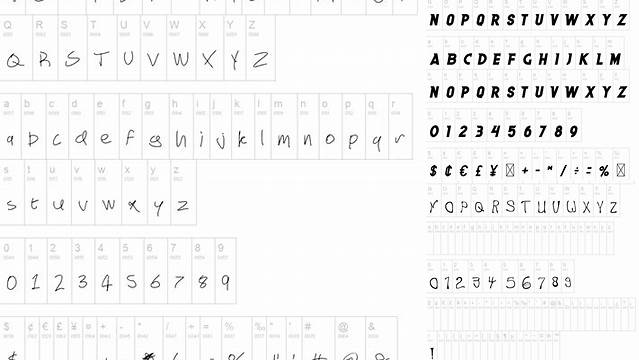
DaFont Handwriting Fonts: Find & Use The Best Styles
Discover the world of handwriting fonts dafont and how they can transform your designs! In this comprehensive guide, we'll explore everything you need to know about these fonts, from their unique characteristics and applications to the best ways to find and use them. Get ready to add a personal touch and artistic flair to your projects with the perfect handwriting font.
Discovering the Charm of Handwriting Fonts
Handwriting fonts dafont hold a unique appeal. They capture the essence of human touch and add a personal, relatable quality that's hard to replicate with standard typefaces. Unlike the rigid structure of many fonts, handwriting styles offer a sense of spontaneity and individuality, making them perfect for a variety of creative endeavors. The beauty of these fonts lies in their ability to evoke feelings of warmth, authenticity, and approachability. Whether you're designing a greeting card, crafting a logo, or creating content for your website, incorporating handwriting fonts can instantly elevate your work and capture the attention of your audience. They are versatile enough to be used across different platforms and mediums, providing a distinctive and memorable aesthetic. When you consider the wide variety of styles available, from elegant scripts to playful doodles, the possibilities are nearly endless. The key is to understand the subtle differences between each font style and how they can best serve your specific design needs. Remember, the right font can tell a story, and a handwriting font can tell a story that resonates with the heart. To truly harness the power of these fonts, we must consider their origins, the nuances in their design, and the appropriate applications for each style. This requires not just a superficial glance at the font but a deep dive into the specific details that make it unique. Are you looking for something that emulates the classic cursive of vintage letters? Or maybe something more modern and edgy to give a fresh new feel? The answers to these questions will guide you towards finding the perfect font that suits your requirements.
The Unique Qualities of Handwriting Fonts
Handwriting fonts dafont distinguish themselves from other font styles through their inherent human touch. They often include slight variations in the letterforms, mimicking the natural inconsistencies of actual handwriting. This inherent variance is what adds authenticity and personality to a design. A well-chosen handwriting font can make your design appear more personal and relatable, especially when used in contexts where authenticity and genuineness are key, such as personal blogs, invitations, or handmade product promotions. The subtle imperfections and unique flourishes add an element of warmth and intimacy that can immediately capture the viewer’s attention. Additionally, many of these fonts come with special characters or alternative glyphs that provide further options to customize the text. These options give designers a greater ability to truly personalize their designs. Choosing the right font is not only about matching the style, but it is also about creating a cohesive message that speaks to the audience and enhances their experience. Understanding these qualities helps in selecting the ideal font that adds a personal touch to any design project. The beauty of a handwritten font is that it brings a certain realness to a design that feels a little less 'corporate' and much more 'human'. So, when you want to add that special touch, go with a handwriting font.
Exploring the Applications of Handwriting Fonts
Handwriting fonts dafont have diverse applications. They are suitable for a wide range of design projects, making them incredibly versatile. Some popular uses include creating invitations, which benefit from the personal touch of a handwritten style; designing logos and branding materials to evoke a sense of authenticity; crafting social media graphics to catch the eye; and creating websites or blog headers to give a more personal tone. Beyond these, they are also frequently used in educational materials, children's books, and even in print designs like posters, t-shirts, and merchandise. The key to using them effectively is knowing where they excel. They work best when trying to convey an approachable, friendly, or personal feeling. Imagine using one for a wedding invitation, or to add a homemade feel to your Etsy shop banners. The flexibility of handwriting fonts is unmatched, as they can either stand alone as the main text or be used in combination with other fonts to create a unique visual aesthetic. You may pair a bold, handwritten headline with a clean, sans-serif body text. Ultimately, the correct use of handwriting fonts can provide a distinct and memorable design experience. When you explore all of the potential uses, it is clear that this font type is a crucial component of today’s design world.
Finding the Perfect Handwriting Fonts on DaFont
Handwriting fonts dafont offers an expansive library, providing a wealth of options for every creative need. The platform is easy to navigate, with fonts neatly categorized, enabling a smooth browsing experience. Here’s a closer look at how to find the ideal handwriting fonts on DaFont. You can search directly using keywords such as 'handwritten', 'script', 'signature', or specific names like 'cursive'. DaFont also allows filtering fonts by style, size, and popularity. The site's user-friendly search and filtering tools make finding the perfect font incredibly easy. Consider exploring the 'Theme' and 'Popular' categories to see the most downloaded and highly-rated fonts, potentially saving you time and effort in finding the best options. Always preview the font to see how it looks with the text you intend to use. This preview function allows you to visualize the font in different sizes and styles before you commit to a download. It’s also useful to examine the license information for each font to ensure its suitability for your intended use, whether it is for personal projects, commercial ventures, or both. By using these practical strategies, you will efficiently explore the possibilities DaFont offers. This will also help you in finding the handwriting font that best matches your project’s aesthetic and requirements. Remember, the key to success lies in careful examination and thoughtful choices.
Navigating DaFont's Handwriting Font Categories
Handwriting fonts dafont categorizes handwriting fonts to make browsing easier. The site offers several sub-categories under the broader 'Handwritten' section, like 'Brush', 'Crayon', 'School', 'Various', and 'Trash'. Each of these categories encompasses fonts with different aesthetics, allowing you to swiftly filter options that meet your specific design needs. For instance, if you want something that simulates the feel of a brush stroke, the 'Brush' category is a great starting point. For a design that requires a more playful or childlike feel, the 'Crayon' category could be the best place to search. The 'School' section is perfect for fonts that mimic classroom handwriting styles, great for educational projects. Furthermore, the 'Various' section provides a collection of fonts that don't fit neatly into the other categories. These may include experimental or unique handwriting styles. Understanding these categories helps you identify which style best suits your project's requirements. Take time to explore each of these categories to find the perfect font, making the browsing process both efficient and productive. The more familiar you are with the different categories, the quicker you will discover the hidden gems within DaFont’s massive font library. Knowing what options exist lets you use these tools to create the most effective design.
Tips for Previewing and Selecting Handwriting Fonts
Handwriting fonts dafont provides preview options, a crucial feature in making the best font selection. When browsing, use the preview option to see how a font appears with your text. This allows you to test out different words and phrases to ensure the font's readability and aesthetic suitability. Always examine the font in different sizes, as some fonts look better at larger sizes and may lose detail when reduced. Also, consider the font's kerning and spacing, especially if you intend to use it in headlines or short text blocks. Pay attention to the font’s style and whether it harmonizes with the overall design aesthetic. If the font will be used together with other fonts, check how well they complement each other. Think about the context in which the font will be used and the message you want to communicate. The preview tool also shows you how a font looks in different design scenarios. It is also vital to examine the characters available in each font. Some fonts may not have all the glyphs or special characters needed for your project. By thoughtfully using the preview features, you can save time and ensure that your selected handwriting font perfectly matches your design requirements. This process is key to finding the right fit.
Understanding Font Licenses on DaFont
Handwriting fonts dafont offers fonts with different licenses, so it's crucial to understand these to avoid legal problems. The license determines how you can use the font – for personal, commercial, or both purposes. Most free fonts on DaFont have a 'Free for Personal Use' license. If you plan to use a font for commercial projects, be aware of the restrictions. You should examine the font’s license details before downloading or using it in your design. These details can be found in the font’s description. Some fonts are free for commercial use, whereas others might require you to purchase a license, which allows you to use them for your business. Some designers are generous enough to let others use their fonts for free, while some might require a small fee. There is no one-size-fits-all. Always check the license before using the font to ensure you're adhering to the terms and avoiding copyright infringements. If a font is used without the appropriate license, you could face legal actions. It is always recommended to understand the license information before downloading and using any font from DaFont. This will save you from unnecessary legal and financial issues. This is a critical step in your font selection process.
Using Handwriting Fonts Effectively in Your Designs
To integrate handwriting fonts dafont into your projects effectively, it's important to consider several factors. The key is to ensure the font not only looks good but also enhances the overall message and visual appeal of your design. The first step is choosing the correct font based on your project’s overall theme and message. For example, an elegant script might be perfect for wedding invitations, whereas a bold, playful font is more suitable for children's books. When using handwriting fonts, pay attention to readability. Some fonts can be difficult to read at smaller sizes or in long blocks of text. Consider using them for headlines, short quotes, or accent elements rather than body text. When pairing them with other fonts, ensure there is a balance and contrast. It is best to combine a handwriting font with a simpler, more readable font for the body text. It's important to evaluate the design on various devices and screen sizes. Ensure the font remains legible and visually appealing. By taking these elements into account, you can use these fonts to their full potential. This enables you to create designs that are both visually appealing and effective in conveying your intended message.
Readability and Legibility in Handwriting Fonts
Handwriting fonts dafont add charm, yet careful attention to readability is paramount. Some fonts can be difficult to read. Assess the legibility of a font before using it, particularly in long texts or at smaller sizes. Factors to consider include the font's stroke thickness, the spacing between letters (kerning), and the overall design complexity. Highly decorative or stylized fonts might look beautiful but be challenging to read. Make sure the text is clearly readable across different devices and screen sizes. Check how the font performs when printed. Some fonts may look great on the screen but have issues in print. Use the font in different scenarios to see how it performs. Use tools such as online readability tests to assess how effectively your font conveys its content. Avoid the use of fancy or elaborate handwriting fonts in situations where clarity is essential. Choose a font that enhances readability. Consider the target audience and their ability to easily understand the font you choose. Prioritize the readability of your message to ensure that the audience can quickly grasp the information being conveyed. Choosing the right font is about enhancing usability and readability.
Font Squirrel: A High-Quality Font Resource